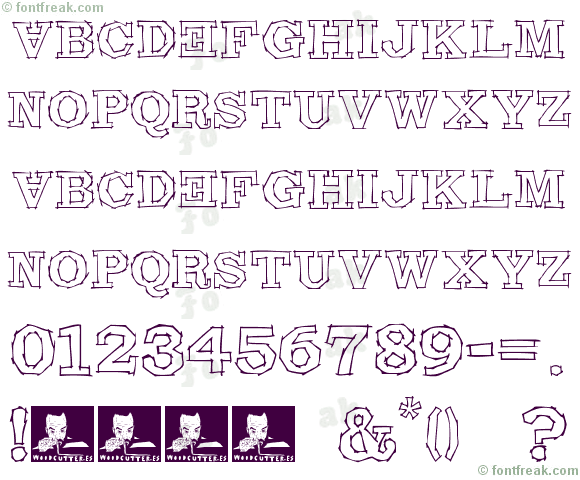
Maldita Comebolsas
Maldita Comebolsas is a distinctive display typeface designed by woodcutter Manero, offering a unique blend of artistic flair and playful character. This font, categorized as a decorative typeface, features a striking outline style that is both eye-catching and versatile. The letters exhibit a bold stroke weight, lending a strong presence to any design, while the uneven edges and charming irregularities add a handmade quality that sets it apart from more polished fonts. The spacing between characters is thoughtfully considered, providing a balanced aesthetic that enhances readability without compromising on style.
Ideal for a variety of creative applications, Maldita Comebolsas shines in contexts such as wedding invitations, where its whimsical nature can evoke a sense of joy and celebration. It also works wonderfully for movie posters, especially for independent films looking to convey a quirky or artistic vibe. Restaurant menus can benefit from its unique character, helping to create a memorable dining experience. Additionally, this font is perfect for merchandise branding, where a strong visual identity is essential to stand out in a competitive market.